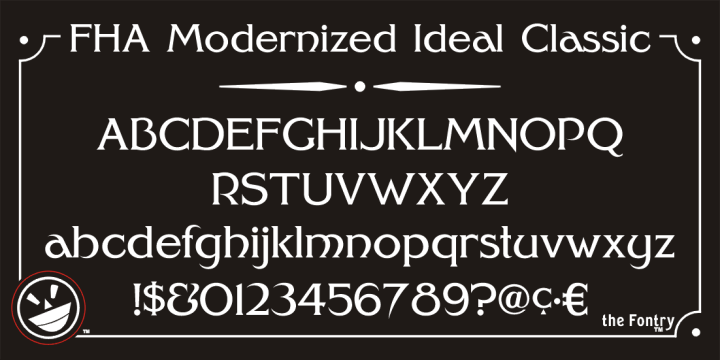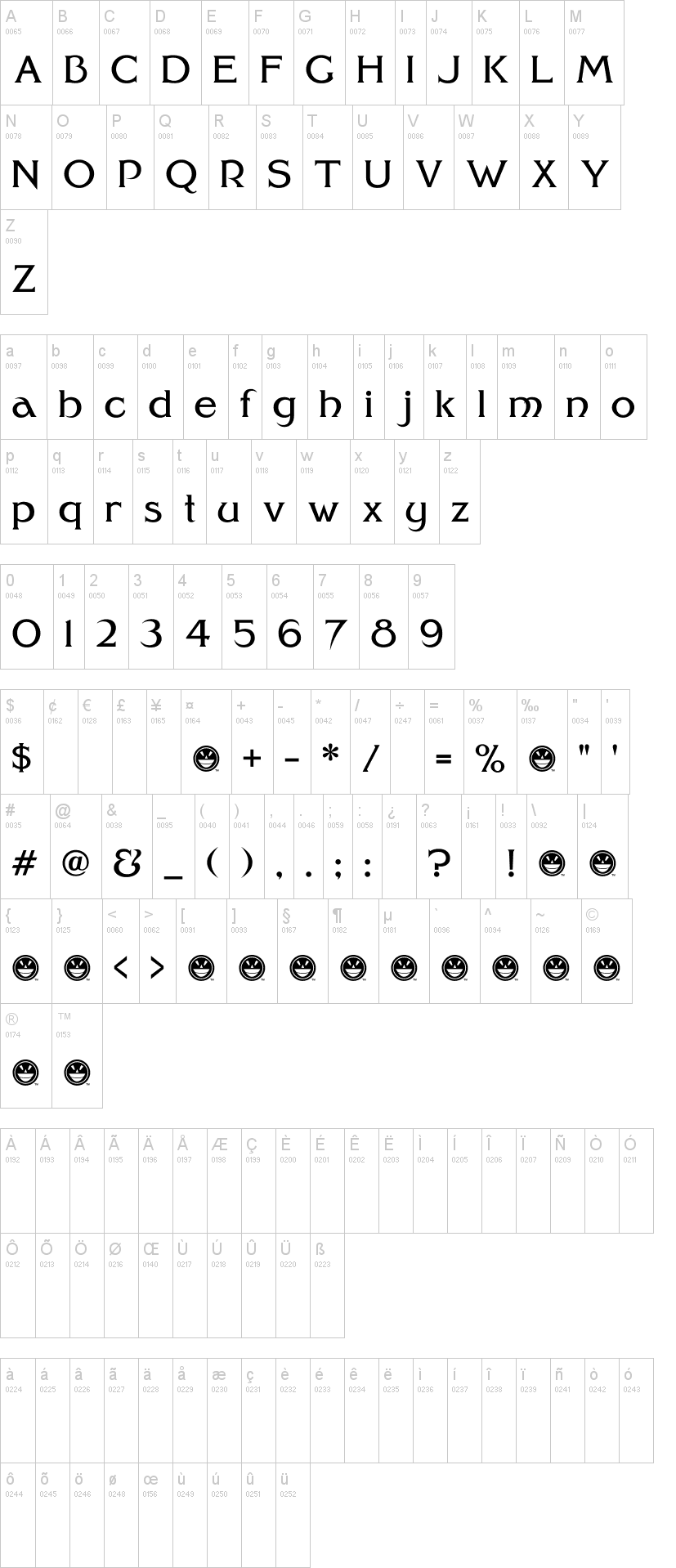
Note of the authorFHA Modernized Ideal Classic is based on the lettering example in Frank H. Atkinsons book Atkinson Sign Painting was published in 1909.